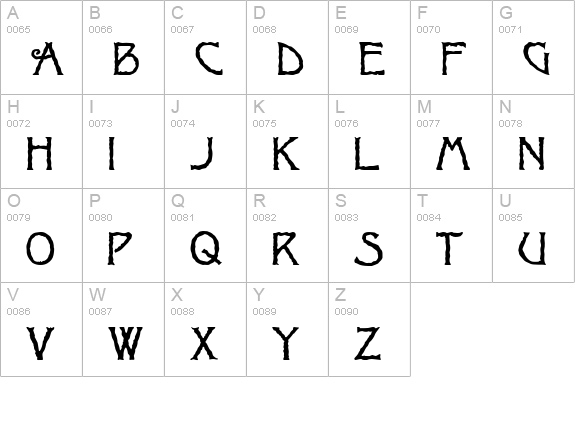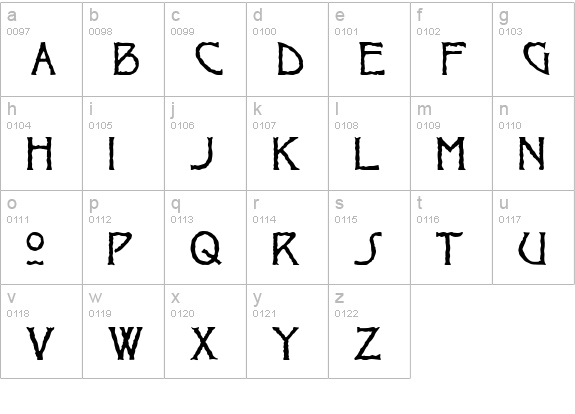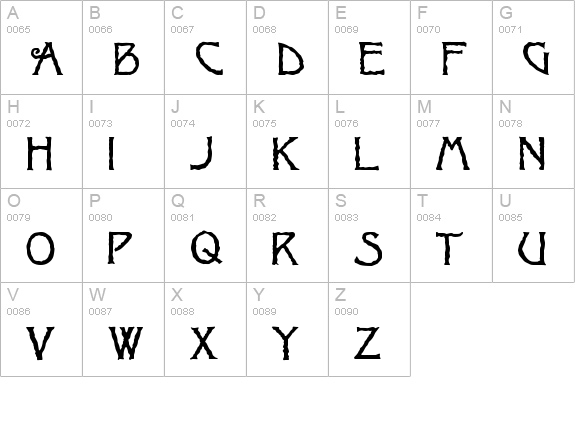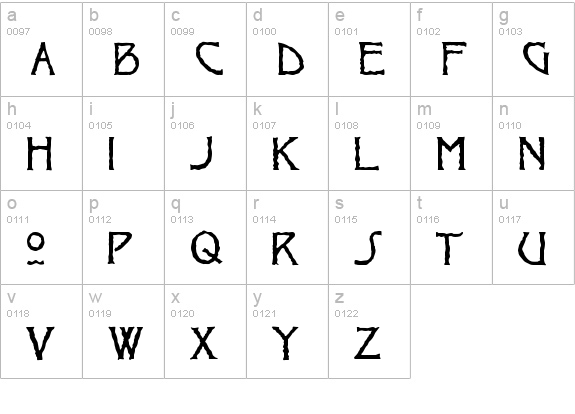
Ragged MF Font Details
Ragged MF font is a unique and artistic typeface that adds a touch of edginess to any design project. The irregular, ragged edges of each character give this font a handcrafted and organic feel, making it perfect for creating eye-catching titles, headlines, and logos. Its bold and rugged appearance sets it apart from traditional fonts, making a bold statement in any design. What's even better is that Ragged MF font is completely free to download at FontsMarket.com. This means you can easily add this stunning font to your collection without any cost. Whether you're a designer looking to spice up your projects or a creative individual looking for a font with character, Ragged MF font is sure to impress. Download it today and let your creativity run wild!